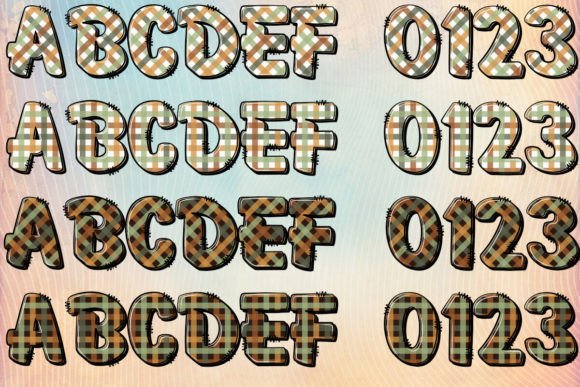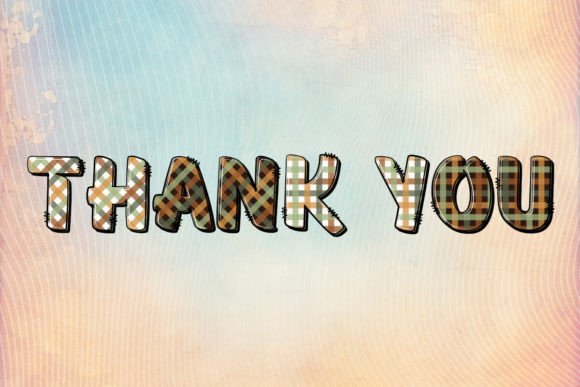
Get Ready to Fall in Love with Autumn Font
As you sit amidst the crunch of fallen leaves, sipping your pumpkin spice latte, and planning the perfect Thanksgiving dinner, you know that the holiday season is just around the corner. It’s a time of cozy warmth, festive cheer, and creative expression. And what better way to capture the essence of this magical time than with the perfect font?
Enter Autumn Font, a charming display of seasonal delight that perfectly captures the feel of the happiest times of the year. With its unique style and festive touch, this font is a designer’s dream come true. Whether you’re creating invitations for Halloween, Thanksgiving, or even Hallothanksmas, Autumn Font is the perfect addition to your design arsenal.
Autumn Font Key Features
- Unique Characteristics: Autumn Font features a distinctive, hand-drawn design with organic lines and subtle texture, evoking a sense of natural elegance.
Review of Autumn Font
Overall, I found the Autumn Font to be a visually appealing and unique addition to any design project. ✨ The subtle texture and earthy tones evoke a sense of coziness and warmth, perfect for fall-themed designs or outdoor-inspired projects.
The font’s versatility is also a major plus, as it can be used for both headings and body text. ✨ The ligatures and swashes add a touch of elegance, making it suitable for high-end designs or luxury brands.
One of the main limitations of the Autumn Font is its limited character set. ⚠️ The font lacks some special characters and punctuation marks, which may require designers to use workarounds or alternative fonts to accommodate their needs.
Another limitation is the font’s file size, which can be quite large due to its complex design and texture. ⚠️ This may cause issues for designers working with bandwidth constraints or those who need to optimize their designs for web use.
While the Autumn Font has its limitations, its unique charm and versatility make it a great addition to any designer’s toolkit. With a little creativity and planning, designers can overcome the font’s limitations and create stunning designs that showcase its beauty.
Recommendation
I would recommend the Autumn Font to designers looking for a unique and visually appealing font for fall-themed or outdoor-inspired projects. However, designers working on projects that require a large character set or optimized file sizes may want to consider alternative fonts.
- Unique texture and earthy tones
- Subtle ligatures and swashes
- Good for headings and body text
- Limited character set
- Large file size
Autumn Font Practical Application Guide
Tips for Getting the Most Out of Autumn Font
Use Autumn Font for seasonal designs, such as Thanksgiving invitations or fall-themed social media posts.
Pair Autumn Font with warm, earthy colors like orange, yellow, and brown to create a cozy atmosphere.
Experiment with different font sizes and styles to create visual interest and hierarchy in your design.